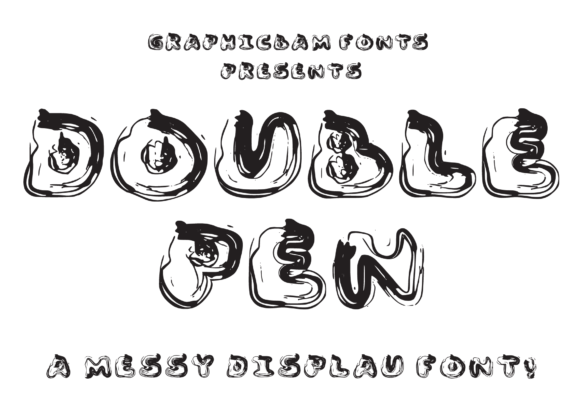
Add a Dose of Playfulness to Your Designs with Double Pen Font
Remember that moment when you stumbled upon the perfect font to match your project’s quirky vibe? It’s like finding a missing puzzle piece – everything falls into place, and your design starts to shine! For me, that moment came when I discovered Double Pen Font. This bold, outlined display font is more than just a pretty face; it’s a game-changer for designers looking to add a playful, personalized touch to their work.
Double Pen Font is designed to make a statement, with its casual, yet eye-catching aesthetic. Whether you’re creating a logo, social media graphics, or a marketing campaign, this font is sure to bring a smile to your audience’s faces. As a designer, you know the value of having a versatile font in your toolkit – and Double Pen Font delivers.
- Unique Characteristics: Double Pen Font features a unique blend of hand-drawn and digital elements, creating a distinctive and eye-catching visual style.
Double Pen Font Review
Overall, I think Double Pen Font is a nice addition to the world of fonts. The unique blend of two pens creating the letterforms gives it a quirky and playful vibe that’s hard to ignore.
- The bold and edgy feel of the font is great for titles and headings.
- It’s quite versatile and can be used for a wide range of designs, from modern to vintage.
- The font’s irregularities make it stand out and add a lot of character to any text.
- The font can be a bit too bold and overwhelming for body text.
- It’s not the best choice for fine typography or intricate designs.
- The inconsistent spacing between letters can make it difficult to read for some users.
In conclusion, while Double Pen Font has some limitations, its unique personality and versatility make it a great choice for certain design projects. It’s perfect for adding a bit of whimsy and fun to your designs, but be careful not to overuse it in body text.
Some common use cases for the Double Pen Font include:
- Creativity and experimentation in design projects.
- Creating unique and personalized fonts for branding.
- Adding a touch of handmade or artistic flair to digital designs.